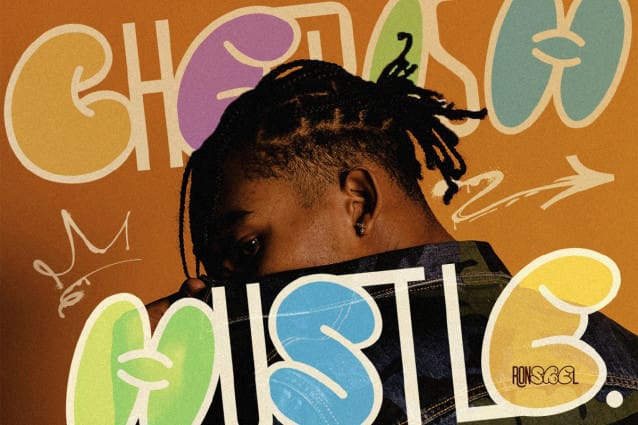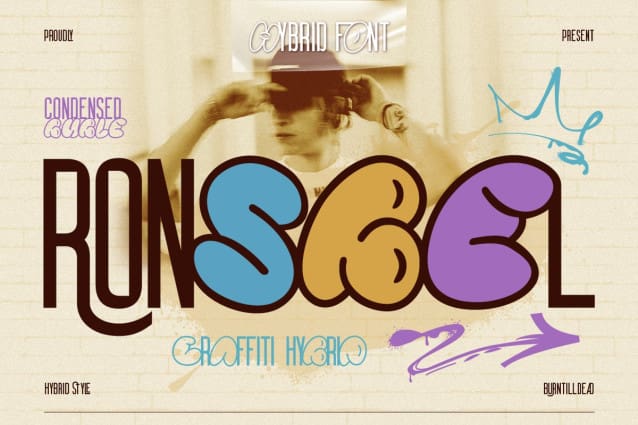
Ronsbel Font
Ronsbel Font, our hybrid typeface that seamlessly combines the playful essence of bubble graffiti with the sleek sophistication of monoline sans serif. With the rounded forms of bubble graffiti font, it evoke a sense of fun, while the clean line add modern touch. this typeface embodies the spirit of urban creativity, making it perfect project that seek to blend whimsy with refinement. Ideal for anything from street art to branding.